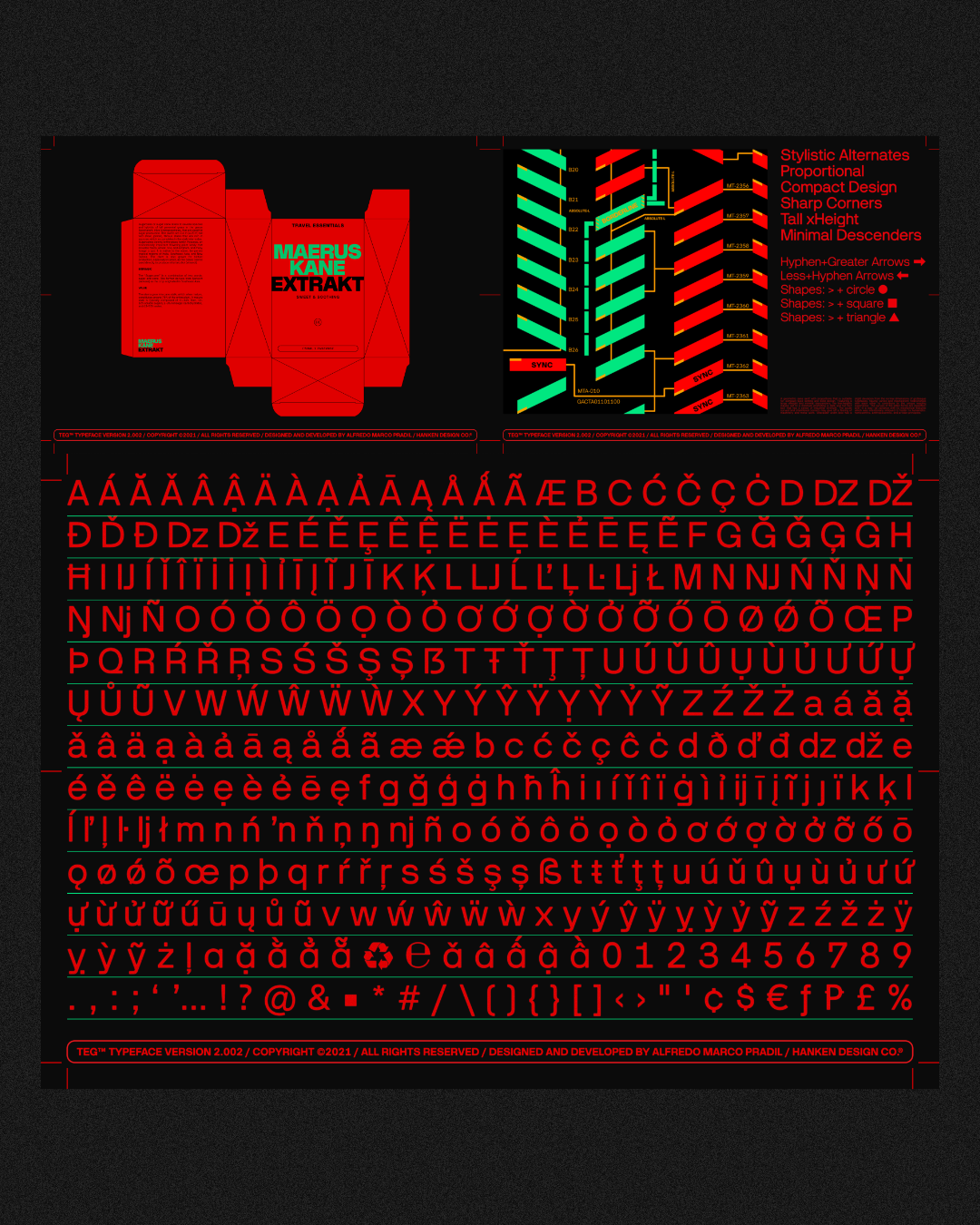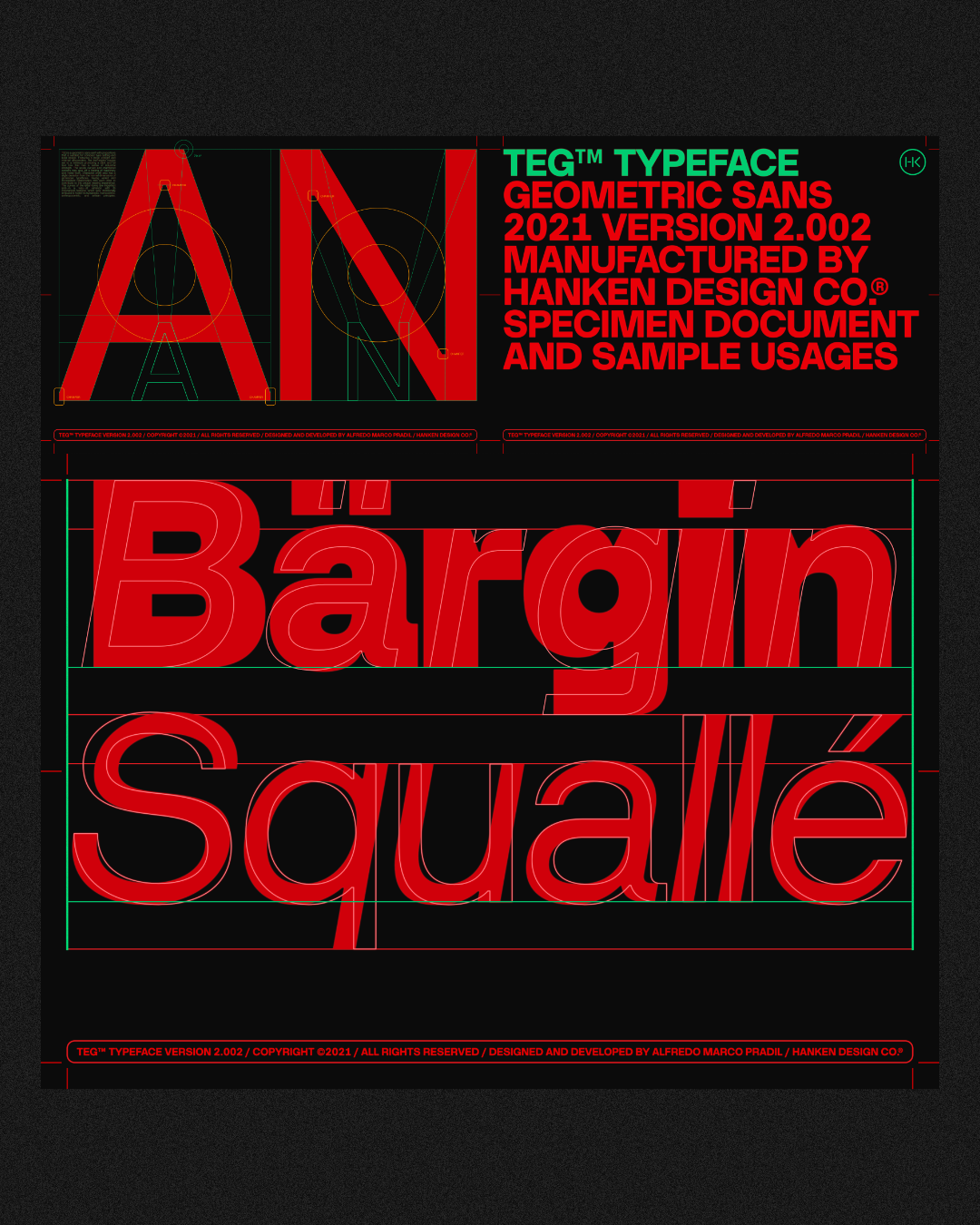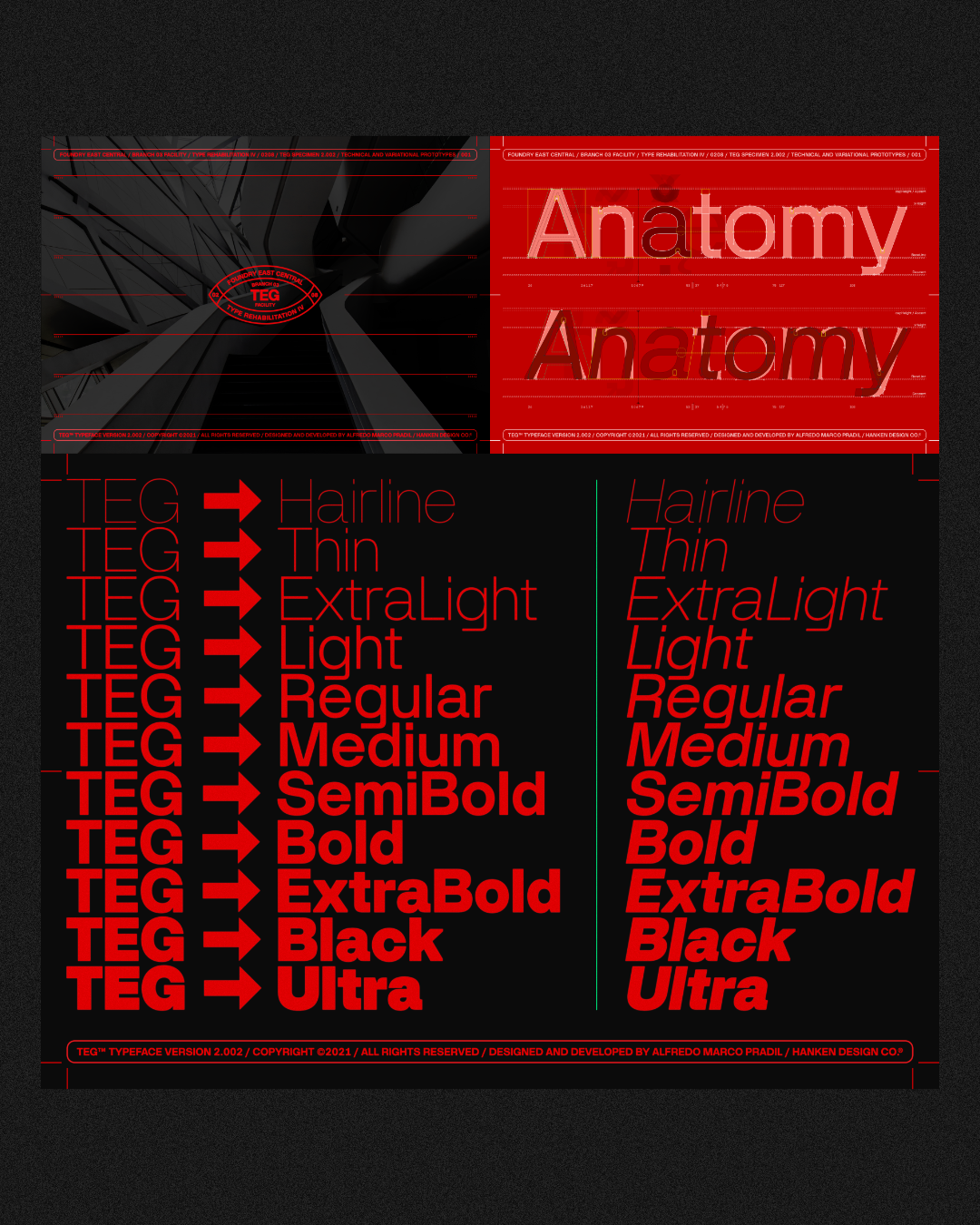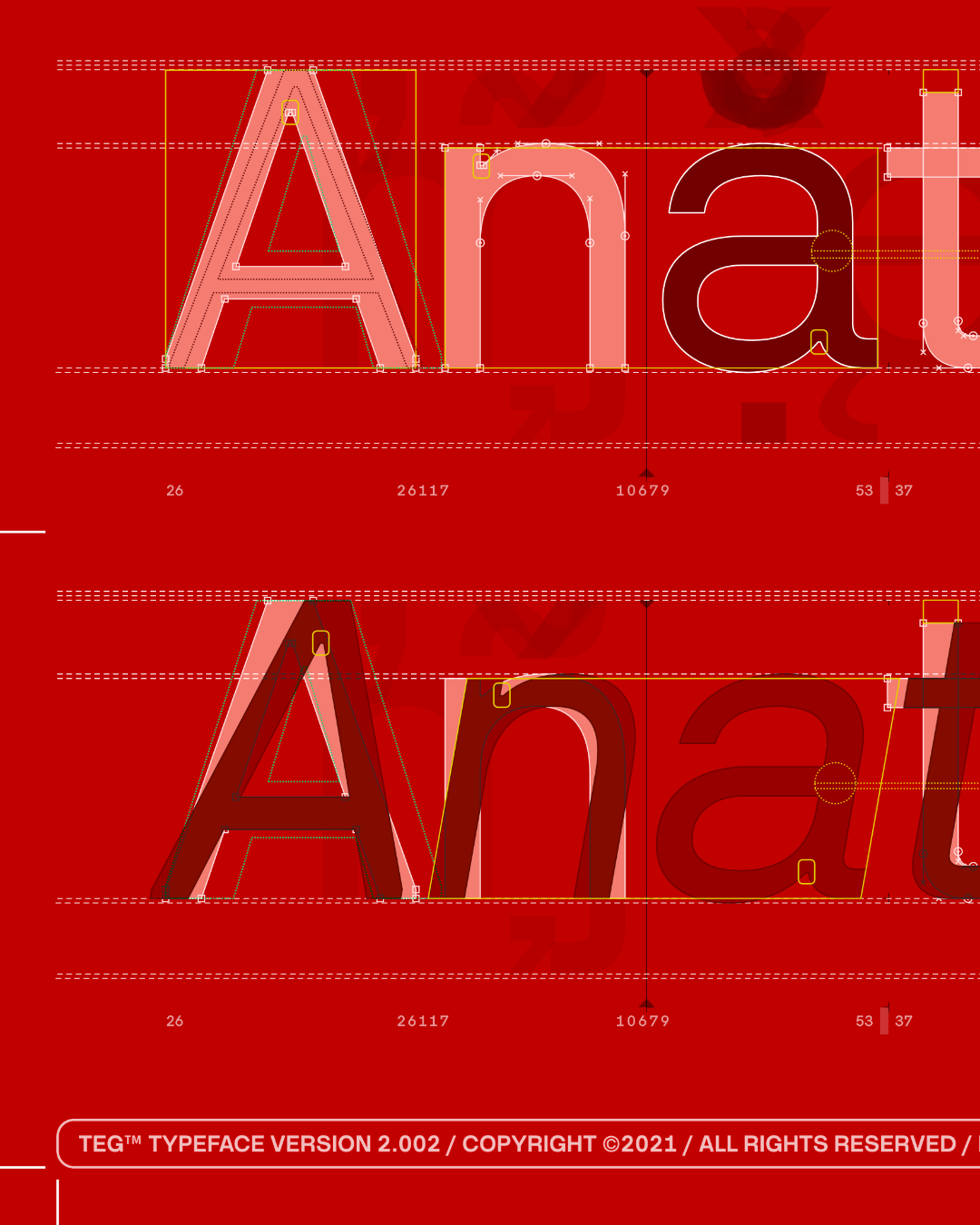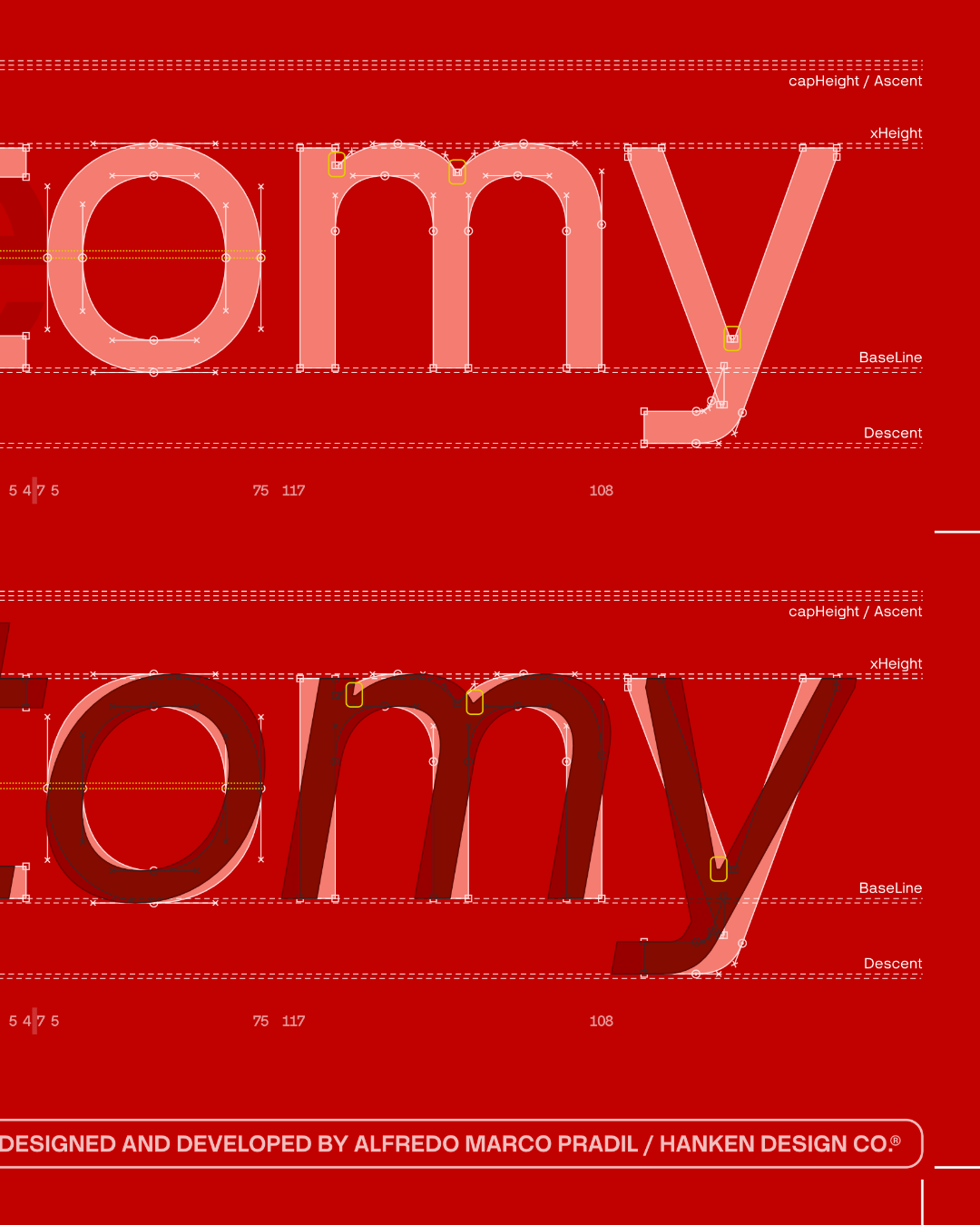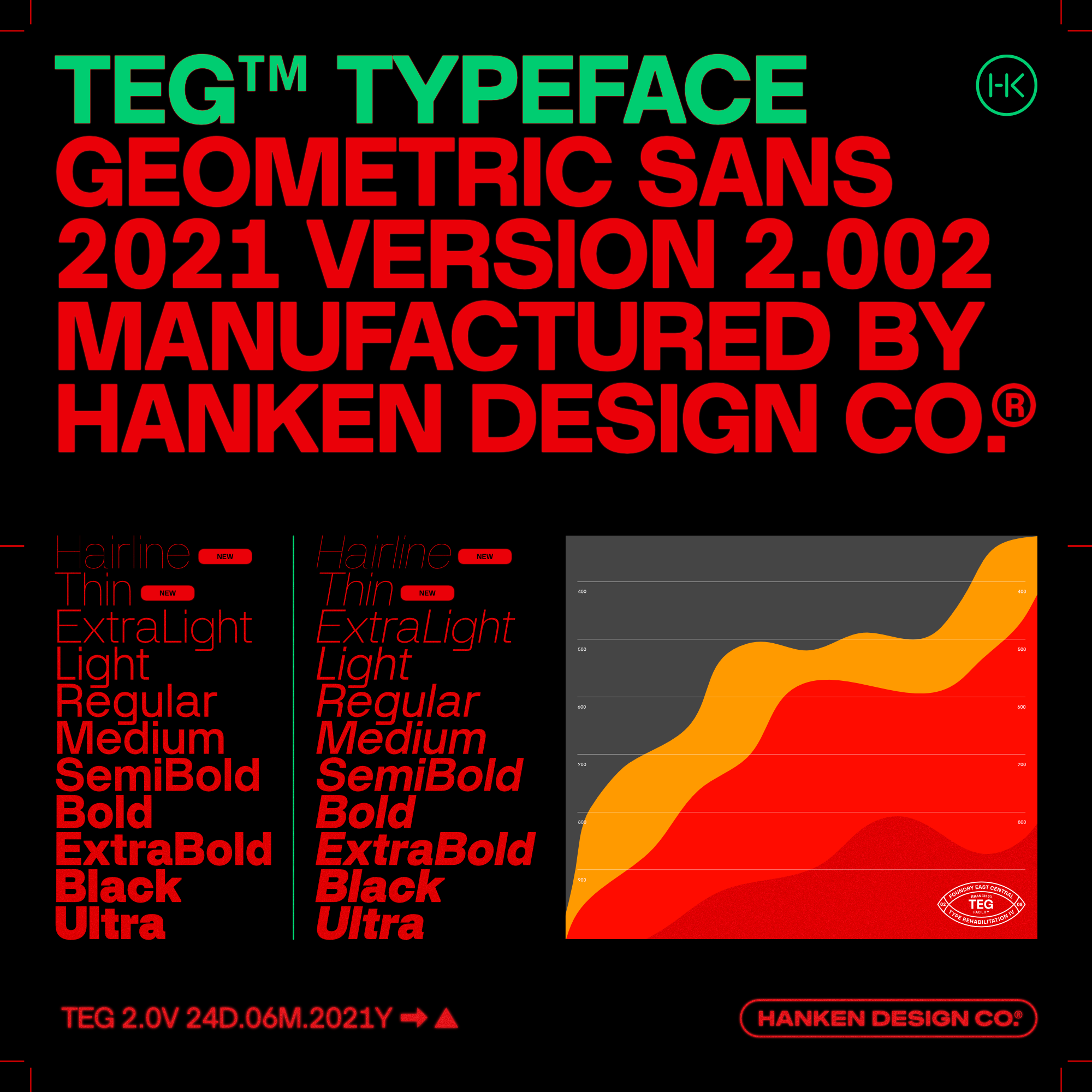
TEG™ is a modern sans-serif, merging geometric and grotesque features through its even stroke weight and a blend of sharp and rounded details, creating a futuristic-classic grotesque impression.